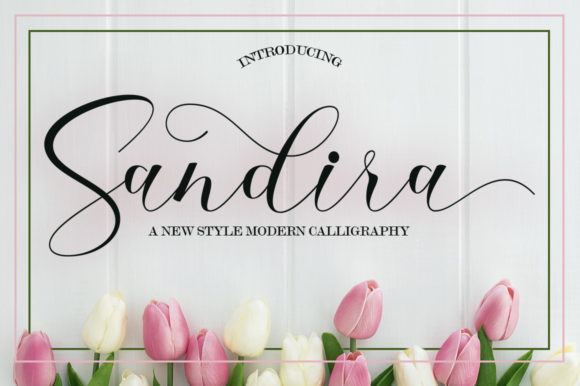
Sandira Script: The Modern Script Font That Brings Playful Elegance to Your Designs
There's a particular kind of magic in a typeface that feels both contemporary and warm—the kind that doesn't just sit on a page but actively shapes the mood of a design. Sandira Script is exactly that kind of script font. It's a premium font built for creators who want to inject personality, fluidity, and a touch of modern elegance into their work without tipping into overly formal or chaotic territory. Think of it as the friendly, confident voice in your typographic toolkit.
What Makes Sandira Script Stand Out?
At its core, Sandira Script is a modern typography solution that balances readability with flair. Its letterforms flow with a natural, hand-lettered quality—smooth curves, connected strokes, and a rhythm that feels organic rather than rigid. Unlike traditional calligraphy fonts that can feel dated or overly ornate, Sandira Script carries a contemporary edge. The x-height is generous, which keeps text legible even at smaller sizes, and the overall texture is clean enough to avoid visual clutter.
What truly sets it apart is its versatility as a creative font. It doesn't scream for attention, but it doesn't fade into the background either. It sits in that sweet spot where personality meets professionalism. Whether you're designing a wedding invitation or a social media post for a boutique brand, Sandira Script adapts without losing its character. The subtle variations in stroke weight give it depth, making it feel handcrafted rather than mechanically produced.
Where Sandira Script Shines Across Projects
The real test of any typeface is how it performs in context. Sandira Script proves its value across a surprisingly wide range of applications.
Branding and Logo Design
For logo design, Sandira Script offers a refined yet approachable feel. It works beautifully for brands in lifestyle, beauty, food, wellness, and creative industries—any space where warmth and authenticity matter. Paired with a clean sans serif font for body text, it creates a visual hierarchy that feels balanced and intentional. A bakery, a boutique clothing label, or a personal coaching brand could use Sandira Script as the primary logotype and instantly communicate a sense of care and creativity.
Packaging and Editorial Design
In packaging design, the font's elegant flow catches the eye on shelves. Imagine it on artisanal candle labels, specialty coffee bags, or handmade soap wrappers. It adds a tactile, premium quality that suggests craftsmanship. Similarly, in editorial design—think magazine headers, chapter titles, or pull quotes—Sandira Script introduces visual interest without overwhelming the layout. It's a display font that knows when to perform and when to step back.
Digital and Social Media
On screens, Sandira Script holds its own remarkably well. For social media graphics, it brings personality to Instagram stories, Pinterest pins, and promotional banners. Its modern script style reads clearly on mobile devices, which is critical given how much content is consumed on phones. For web design, it works well in hero sections, call-to-action buttons, or accent text—places where you want to guide the eye and evoke emotion. Just be mindful of using it sparingly for body copy; script fonts generally perform best in headlines or short phrases.
Personal and Commercial Projects
How Sandira Script Influences Design Outcomes
Fonts do more than display words. They shape perception. When you choose Sandira Script for a project, you're making a deliberate decision about how your audience will feel when they encounter your design.
Brand perception shifts noticeably with the right typeface. A brand using Sandira Script communicates creativity, approachability, and attention to detail. It suggests that the people behind the brand care about aesthetics and experience. This is particularly valuable for small business owners and entrepreneurs building their brand identity from the ground up. The font becomes part of the brand's visual language, reinforcing recognition over time.
Visual hierarchy benefits from its distinctiveness. Because Sandira Script is clearly a handwritten font in style, it naturally contrasts with serif font or sans serif font options used for body text. This contrast makes it easy to separate headlines from supporting copy, guiding readers through the layout intuitively. Good hierarchy reduces cognitive load, which means your audience engages longer and absorbs more.
There's also the matter of consistency. When you use Sandira Script across touchpoints—website headers, email newsletters, printed materials, social posts—you create a cohesive visual thread. People start to associate that style with your brand. That's the beginning of recognition, and recognition builds trust.
Practical Tips for Using Sandira Script Effectively
Choosing a font is only half the work. Using it well is where the craft comes in.
Evaluate project fit first. Not every project calls for a script font. Sandira Script excels where warmth, creativity, and elegance are desired. If your project demands extreme formality or technical precision, a different font pairing strategy might serve better. Ask yourself: does this font match the emotional tone I want to set?
Test font pairings thoroughly. Sandira Script pairs naturally with geometric sans serifs for a modern, clean look. It also complements traditional serifs for a more sophisticated vibe. Try combining it with fonts like Montserrat, Raleway, or even a classic like Garamond. Set sample text at the sizes you'll actually use. Look at how the weights interact. A bold sans serif headline with a Sandira Script accent often creates a striking, balanced composition.
Review included styles. Many premium script fonts come with alternates, ligatures, and stylistic sets. Sandira Script is no exception. Explore these options in your design software. Swapping out a default "s" for a stylistic alternate can transform the feel of a word. These details separate amateur typography from polished, professional work.
Mind the readability. Script fonts are inherently more challenging to read at small sizes or in long passages. Use Sandira Script strategically—for headlines, subheadings, short phrases, and accent text. Reserve your body copy for a highly legible sans serif font or serif font. This isn't a limitation; it's how script fonts are designed to function best.
Understand the licensing. If you're using Sandira Script for client work or commercial products, confirm the license covers your intended use. Most commercial font licenses are straightforward, but it's good practice to verify details around embedding, distribution, and the number of users or devices covered.
Bringing It All Together
Sandira Script isn't just another display font collecting dust in your font library. It's a purposeful design asset that bridges the gap between playful and professional. Its strength lies in its adaptability—it feels at home on a wedding invitation and equally confident on a startup's landing page. For designers, marketers, bloggers, and business owners looking to elevate their visual communication, it offers a reliable way to add character without sacrificing clarity.
The best typography decisions happen when you understand both the tool and the context. Sandira Script gives you a versatile, modern script that respects the fundamentals of good design while leaving room for creative expression. Use it thoughtfully, pair it wisely, and let it do what it does best: make your work feel genuinely human.